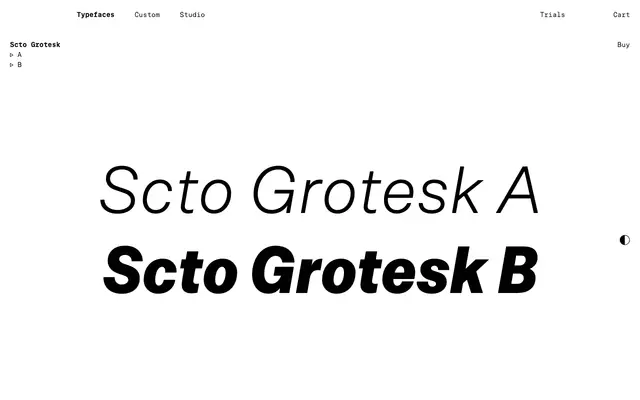
Scto Grotesk
Scto Grotesk specimen from Schick Toikka
A two-flavour neo-grotesque (A and B) in six weights with italics; B is narrower than A but not a condensed, for economical set widths.
Scto Grotesk is Schick Toikka's neo-grotesque, drawn with the explicit goal of being the most rational, least quirky version of the genre. Strokes are invariably cut horizontally or vertically across all weights; R has a straight leg, dots are square, ascenders and caps share the same height. Reader-friendly details such as the lowered dots on i and the asymmetric bars in f and t keep it animated rather than sterile. The family comes in two flavours: Scto Grotesk A is beaming with confidence; Scto Grotesk B is narrower but not a condensed, intended for economical set widths. Italics slope only as much as needed for inline emphasis, making them usable for longer texts. The naming pays tribute to typefaces that didn't yet have names of their own and were identified by foundry or designer plus a style descriptor, and the family ships with an extended Latin character set and circled-number extras.
Schick Toikka frame Scto Grotesk as their take on the neo-grotesque genre that became an essential ingredient of the International Typographic Style. They opt for the least quirky, most rational option throughout: strokes are invariably cut horizontally or vertically across all weights, R has a straight leg, dots are square, ascenders and caps share the same height.